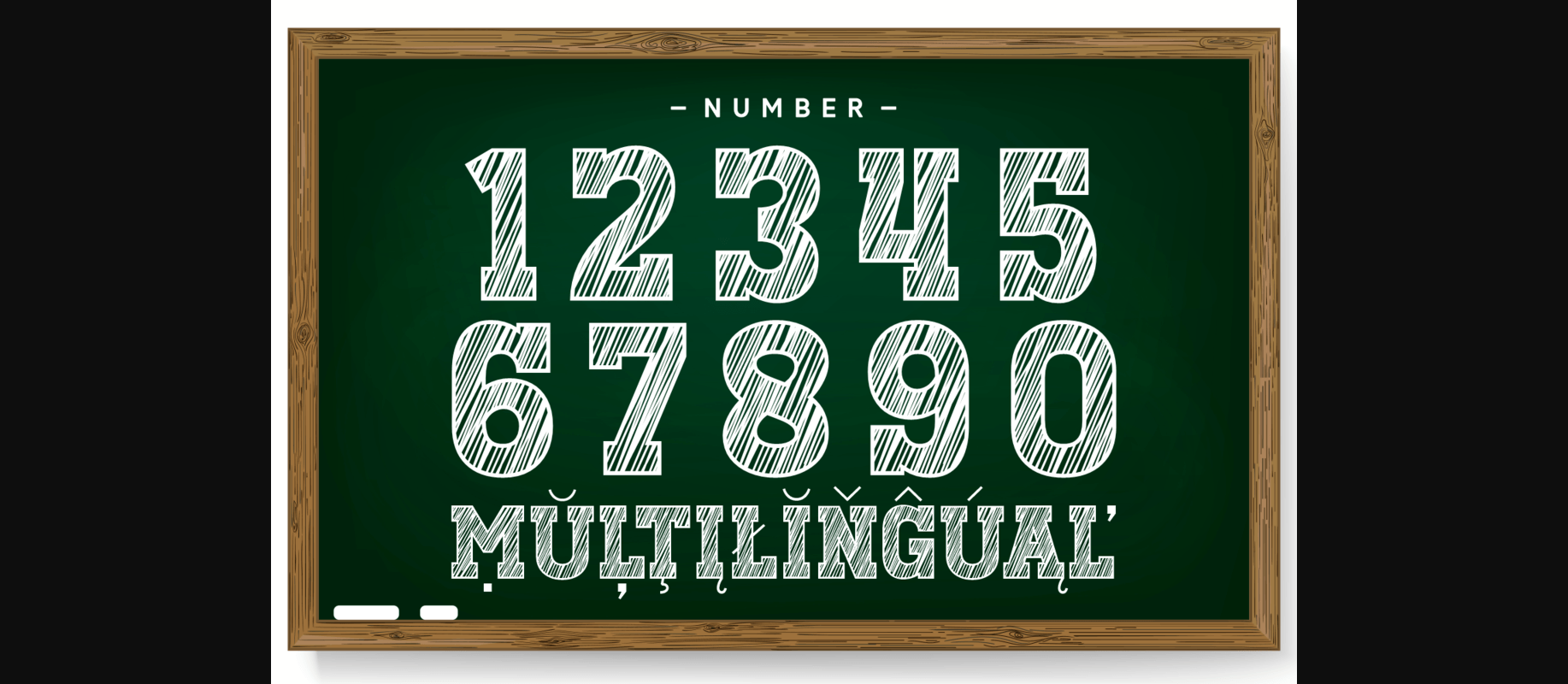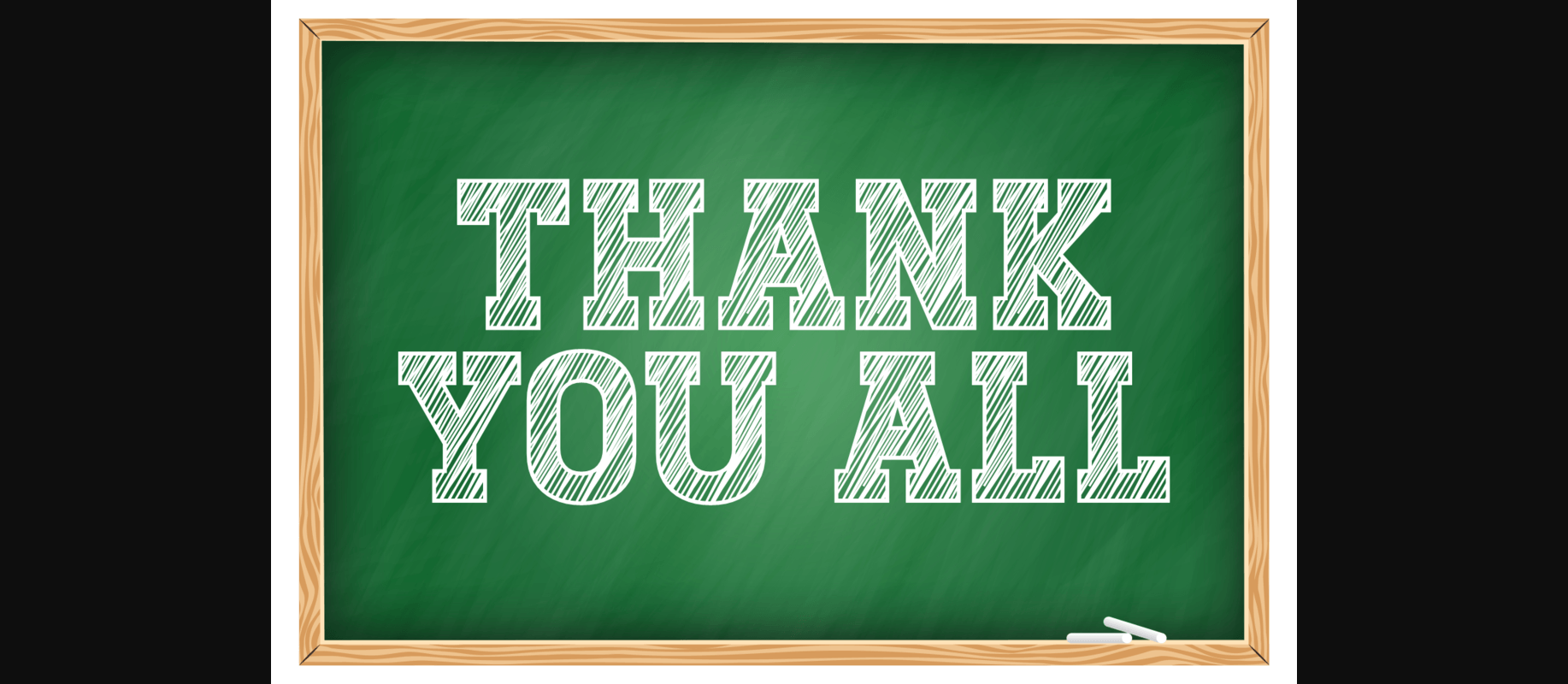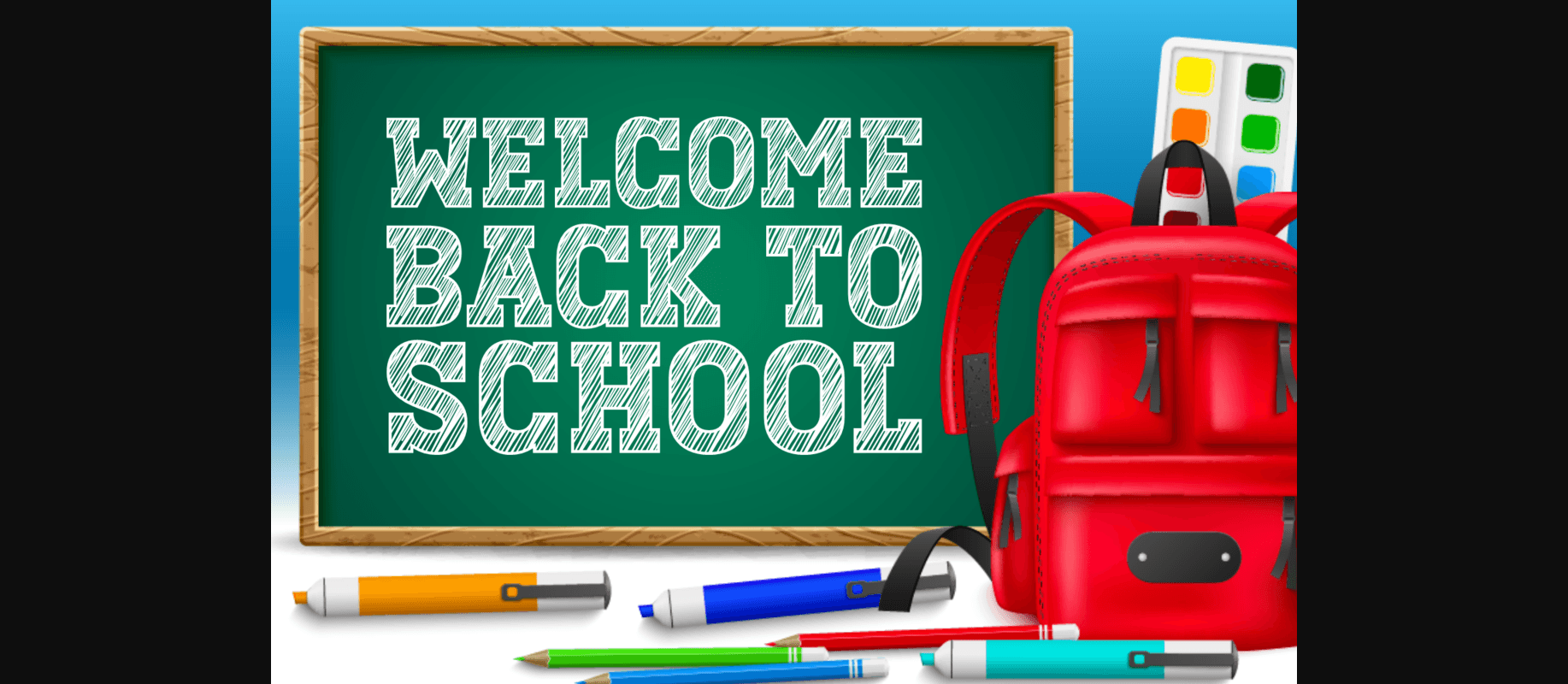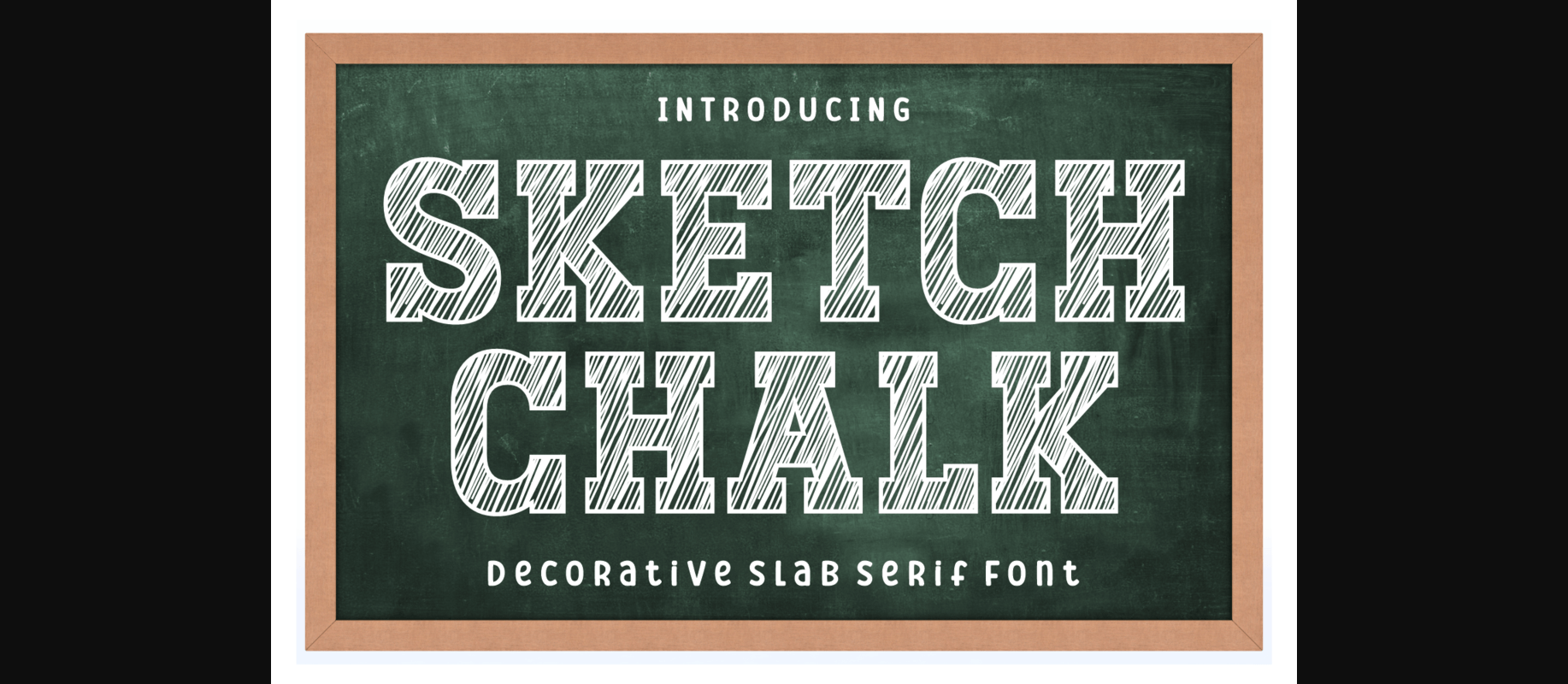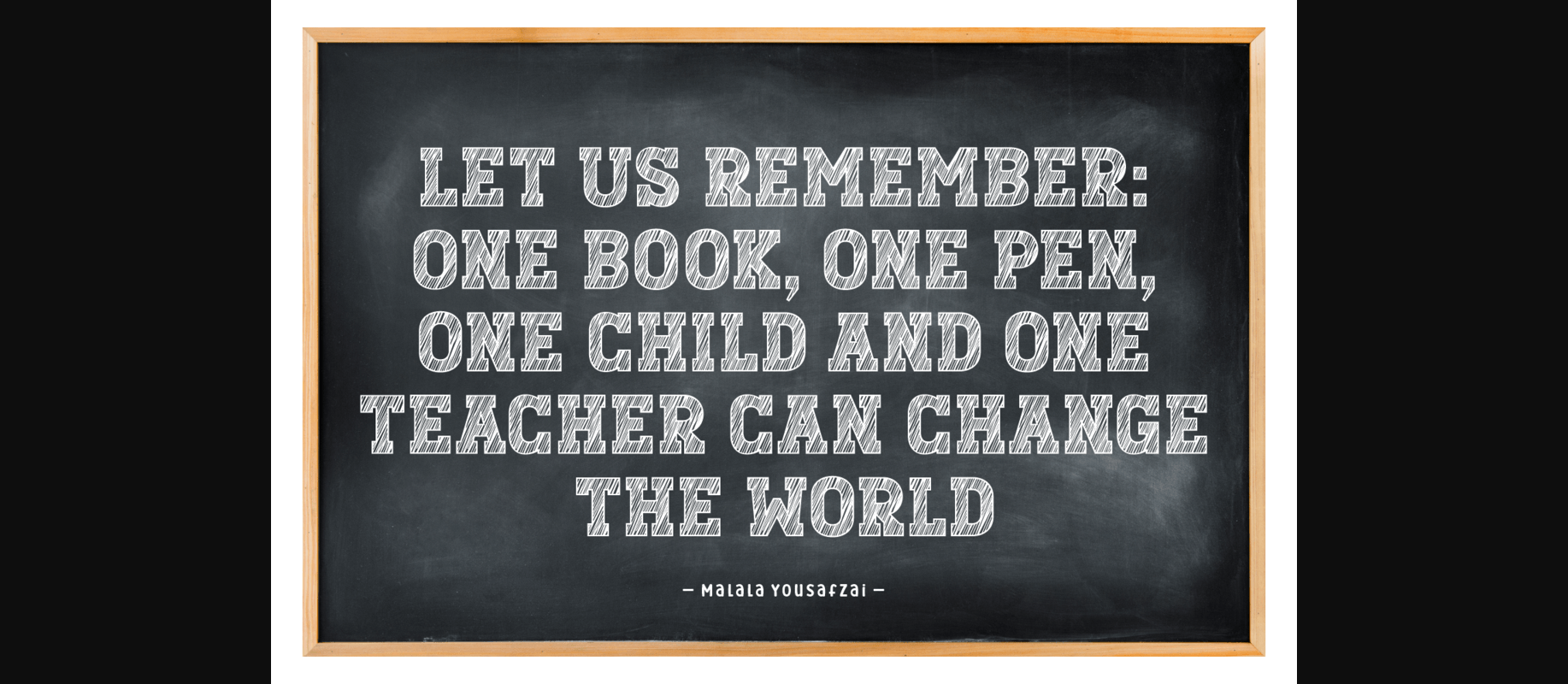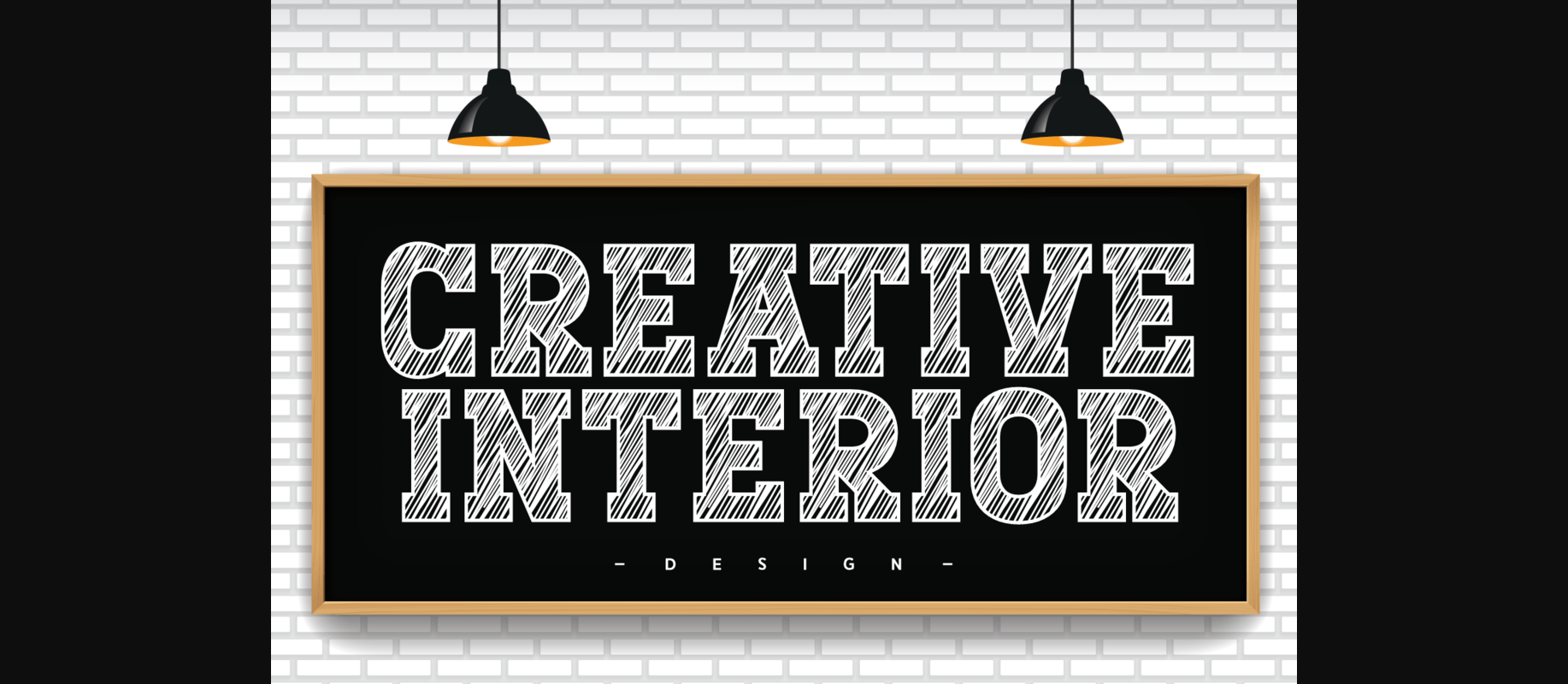
Sketch Chalk Font
About Sketch Chalk Font
Sketch Chalk is a slab serif decorative font. The chalk-like striped characters make it perfect for school-themed projects. Use this striking typeface for headlines, crafting projects, logos, banners, posters, and many more.